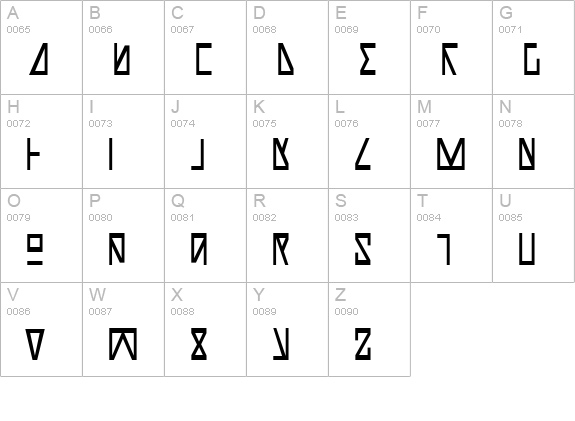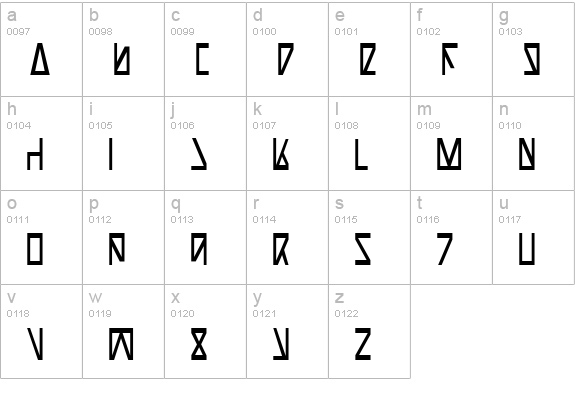
Nick Turbo Condensed is a distinctive, condensed-width variant in the Nick typeface family \xE2\x80\x94 well suited to design and typography projects.
Nick Turbo Condensed font is a modern and stylish typeface that exudes energy and speed. With its sleek and condensed design, this font is perfect for giving your projects a dynamic and contemporary look. The sharp lines and bold strokes of Nick Turbo Condensed make it ideal for headlines, logos, posters, and more. Best of all, Nick Turbo Condensed font is available for free download at FontsMarket.com. Whether you're a designer looking to add a touch of flair to your work or a business owner in need of a fresh new look, this font is sure to make a statement. Don't miss out on the opportunity to enhance your designs with this versatile and eye-catching typeface. Download Nick Turbo Condensed today and let your creativity soar!